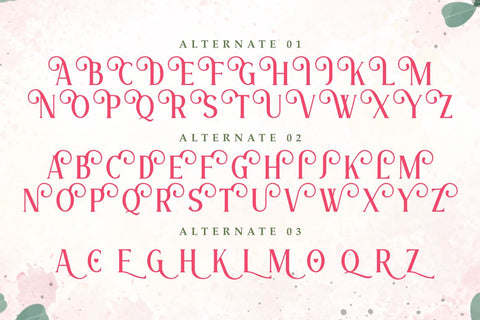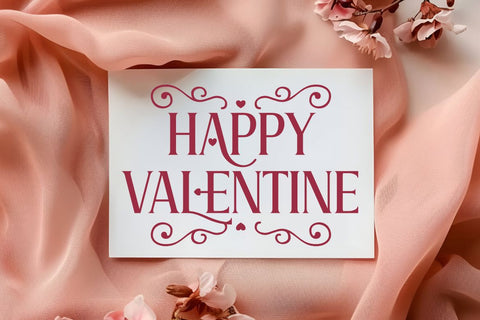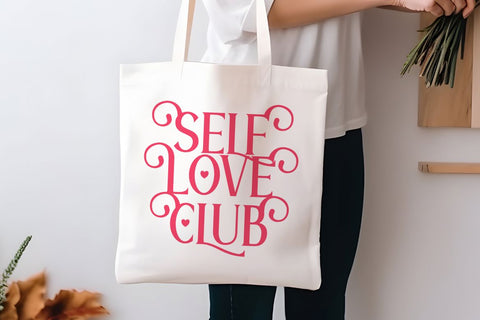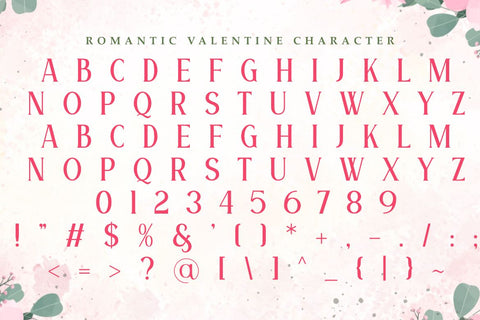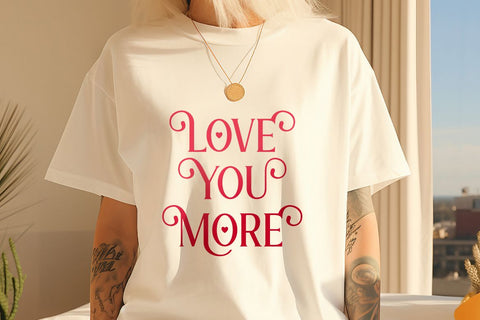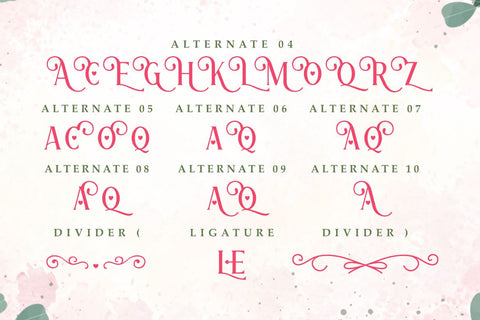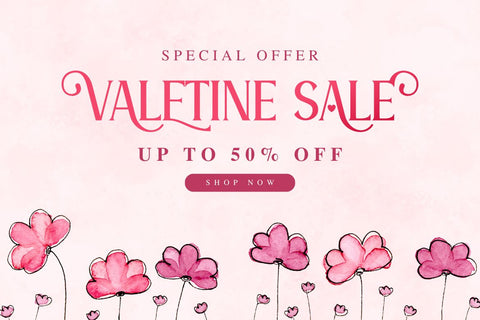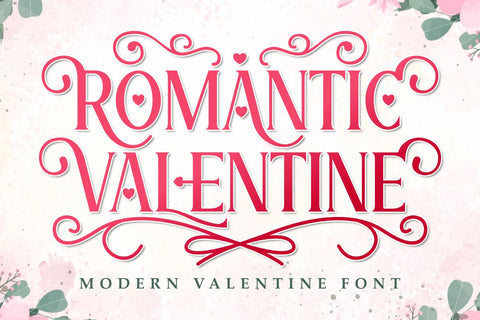
Romantic Valentine - Beautiful Valentine Font
Romantic Valentine is a modern decorative display font inspired by elegant Valentine lettering, romantic invitations, and classic love-themed signage. Its graceful swashes, heart details, and stylish curves make every word feel special and luxurious. Perfect for wedding invitations, Valentine cards, love quotes, sublimation designs, tumblers, mugs, laser cut signs, wall art, stickers, party decor, gift tags, packaging, logos, branding, POD designs, and any DIY craft that needs a romantic touch. Great for holiday themes like Valentine’s Day, weddings, anniversaries, engagements, bridal showers, and other love celebrations.